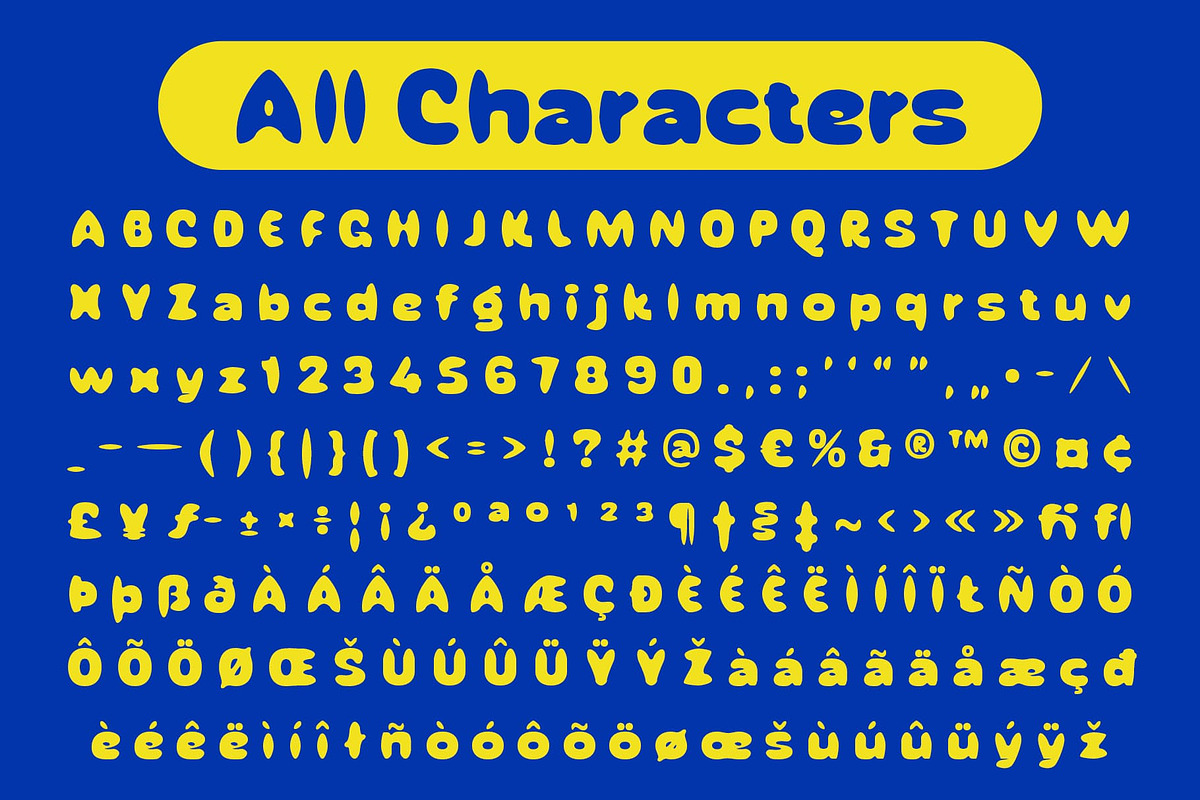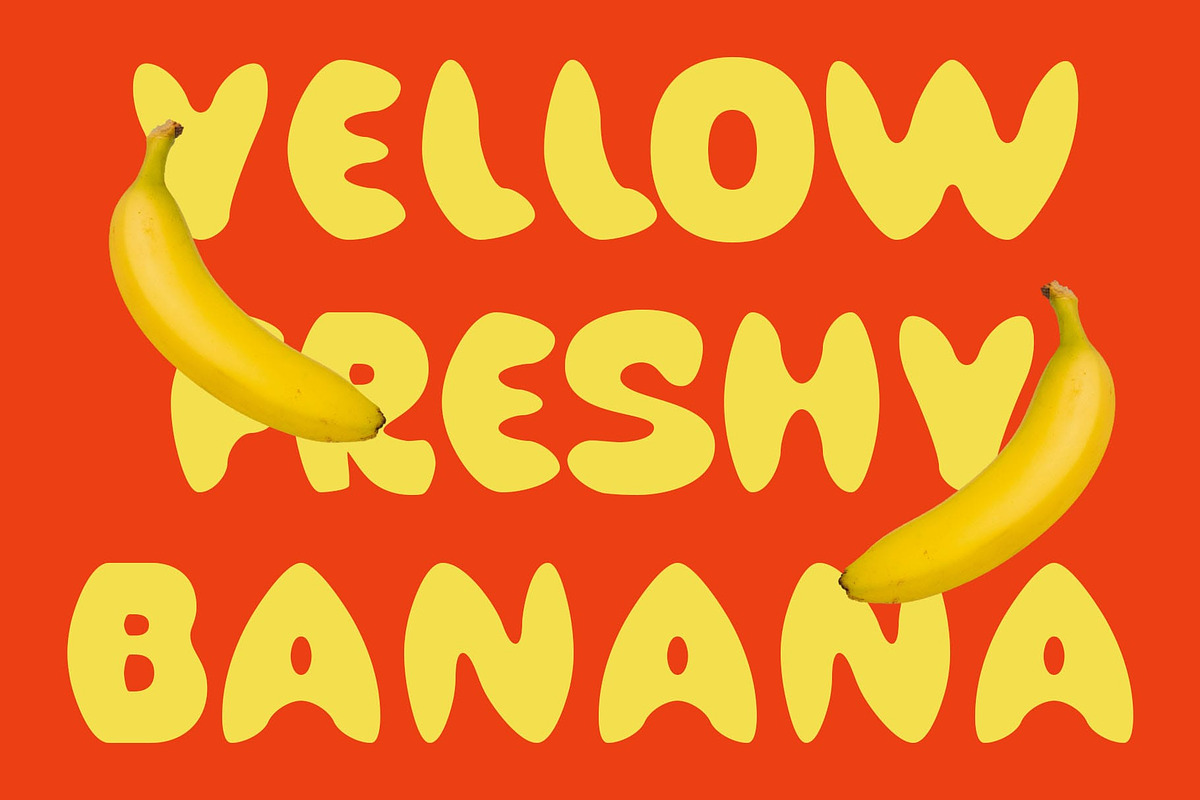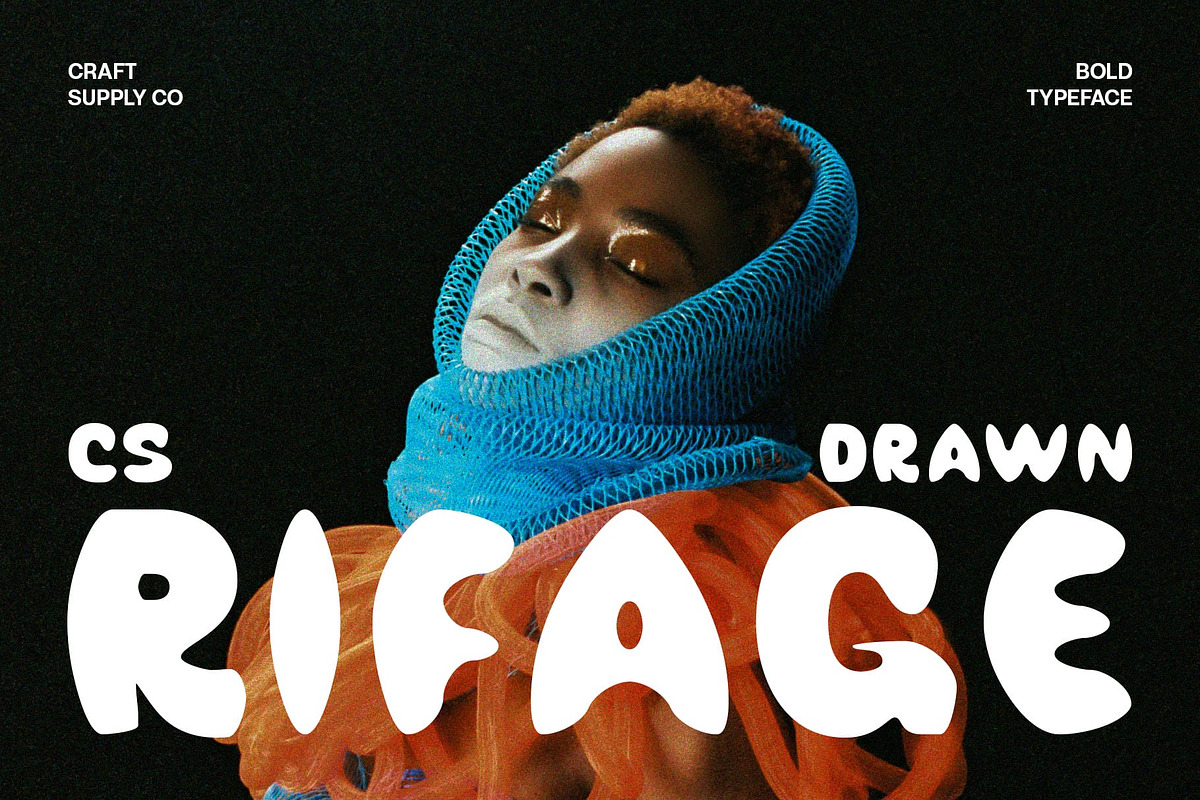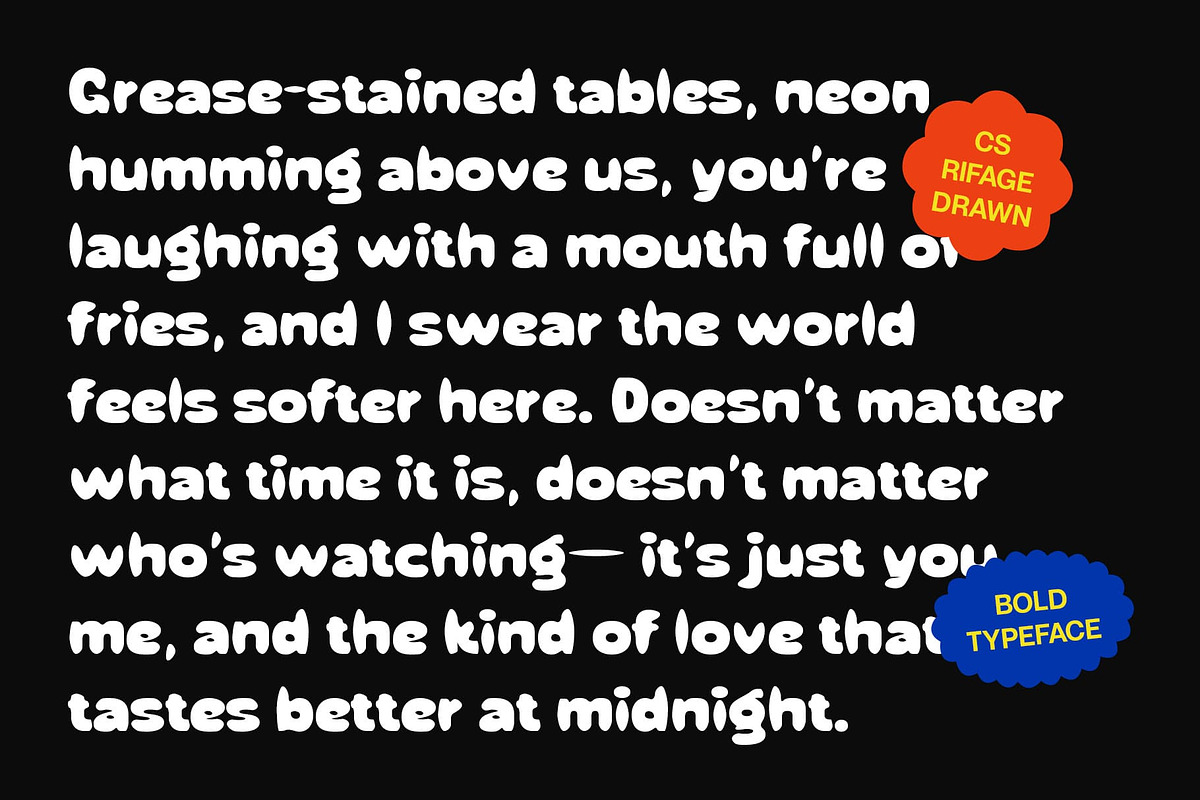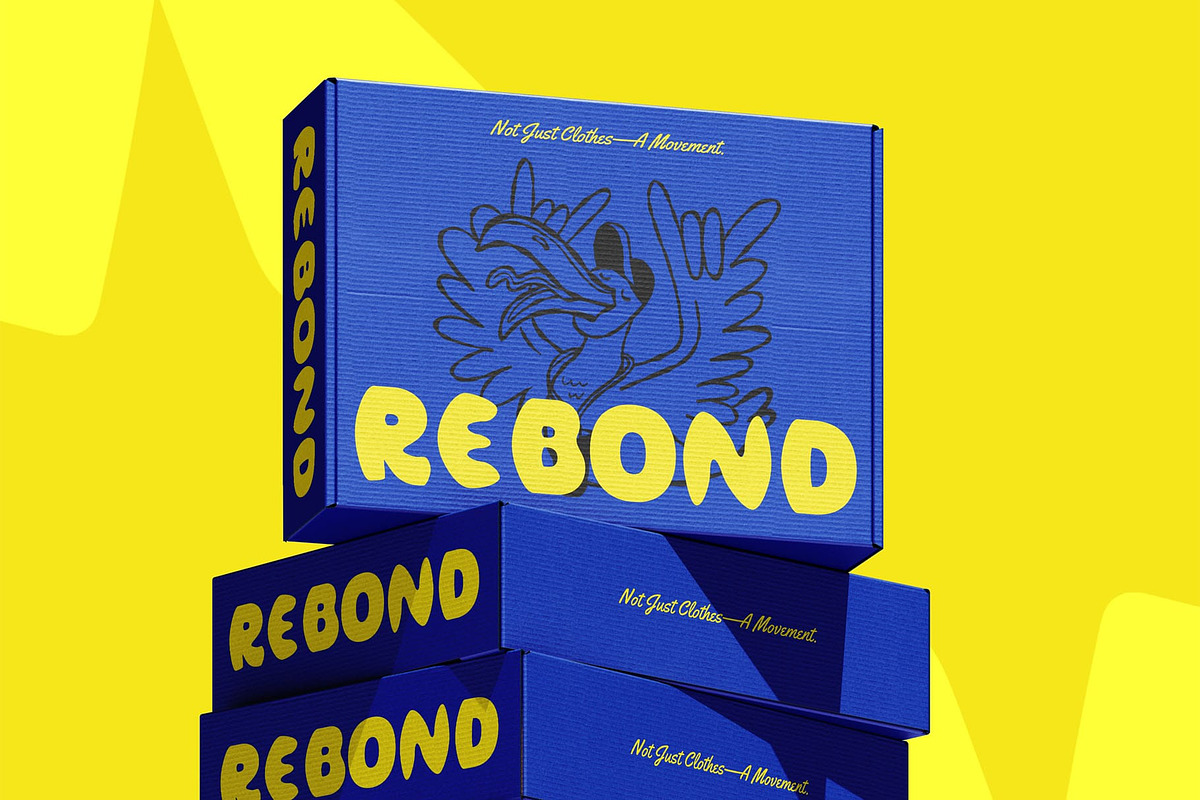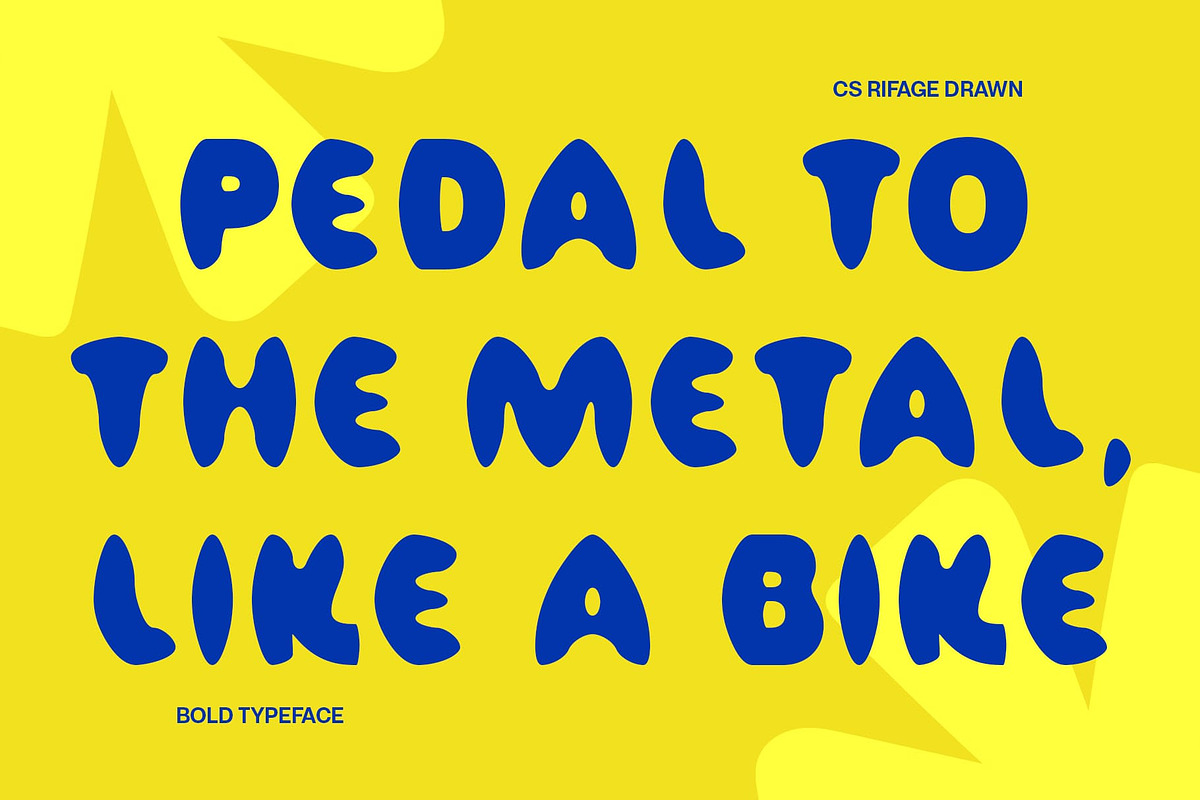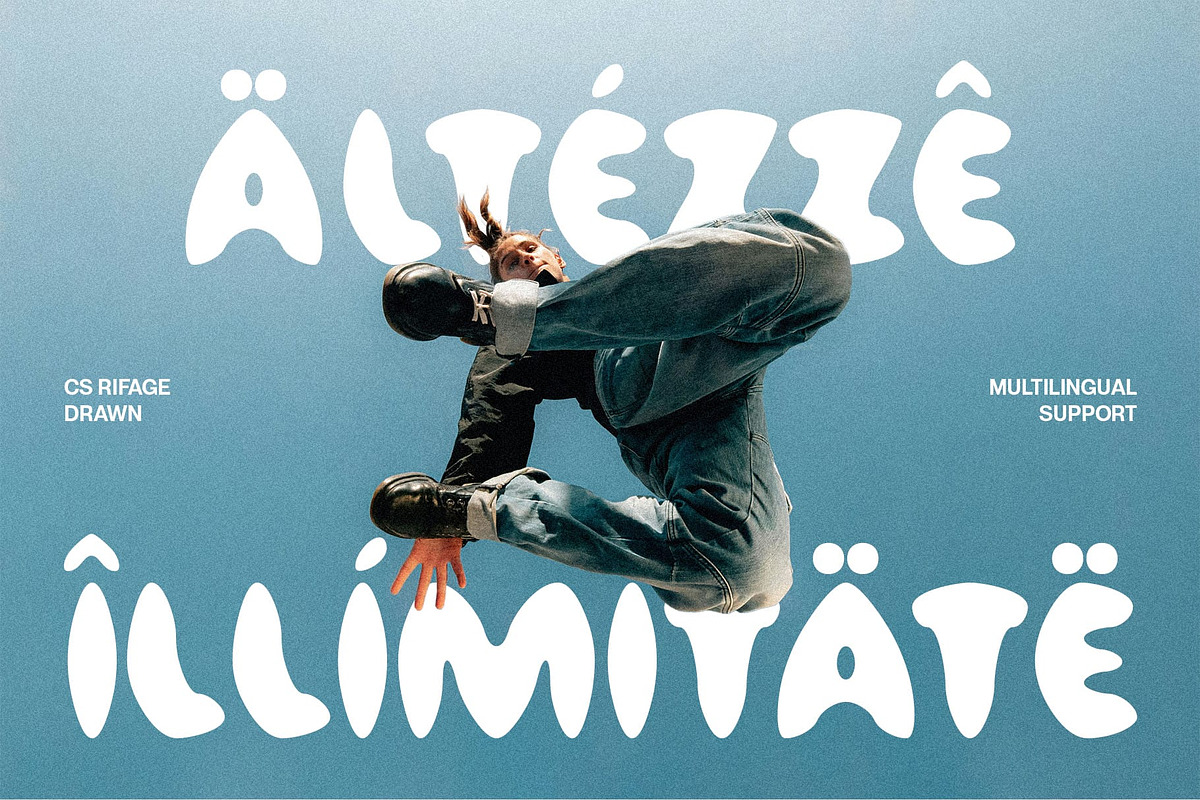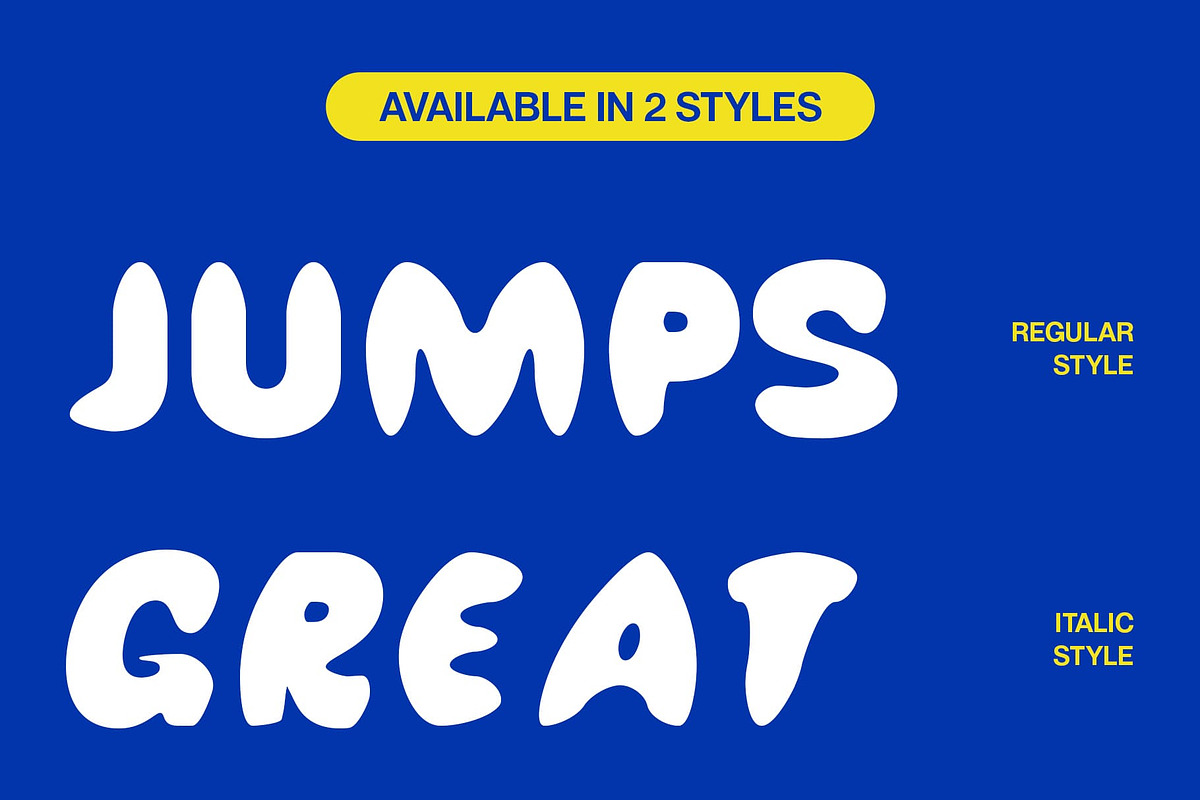
CS Rifage Drawn
CS Rifage Drawn: Bold Display Sans Serif with Handmade Energy
Display Sans Serif Font with Drawn Effect CS Rifage Drawn is a display sans serif font featuring bold, clean letterforms that create a cheerful, energetic, and visually striking appearance. Its strong design makes it perfect for projects that aim to grab attention and convey playfulness.
Handmade Texture for Expressive Character Enhanced with a subtle drawn effect, each character gains a handcrafted texture that adds depth, individuality, and artistic flair. The manual detailing transforms bold forms into lively, expressive typography with personality.
Funky and Playful Style This expressive and dynamic font combines bold, modern shapes with whimsical detailing, resulting in a typeface that is fun, unconventional, and visually engaging. Its energetic style ensures designs stand out while remaining readable and dynamic.
Ideal for Attention-Grabbing Creative Projects Perfect for posters, branding, headlines, and other creative applications, this artistic and handmade font adds personality, energy, and character to any design. Its combination of boldness and handcrafted nuance makes it ideal for playful, standout projects.
Elevate Designs with Vibrant Personality With strong letterforms, handcrafted details, and dynamic styling, this creative and eye-catching font delivers a typeface that is both visually compelling and versatile. It’s a creative choice for designers seeking a bold, energetic, and expressive typographic presence.